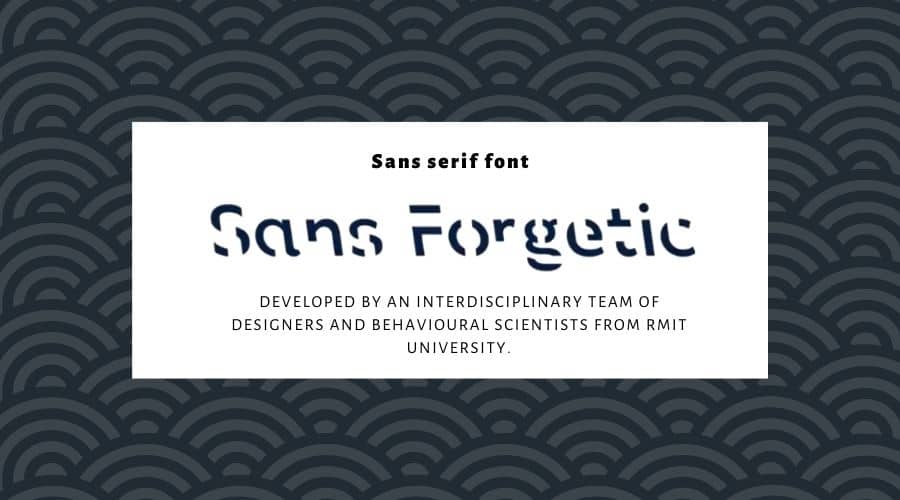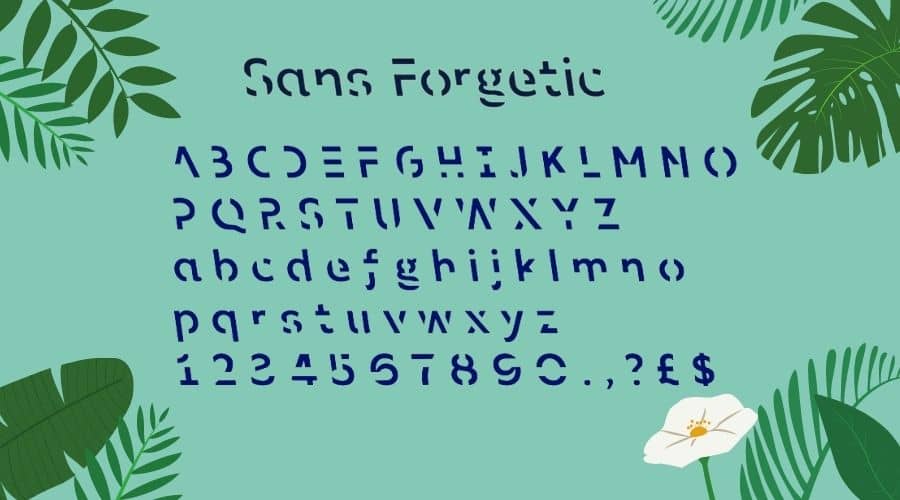
Sans Forgetica Font
The font Sans Forgetica is a Modern Sans serif typeface. On January 11, 2021, it was developed by an interdisciplinary team of designers and behavioural scientists from RMIT University.
For helping you to remember your study notes, the font was created utilizing cognitive psychology concepts. The font makes you remember your study notes which is an unusual and unique motto for making any font. The multidisciplinary analyses of humans mental Psychology state and connected it with this font before launching. The work and goal of this font are entirely different from its fellow fonts as Ancient Olive Sans Serif Font or Ancient Olive Sans Serif Font. The font can be only used in OpenType format.
The primary purpose of the font is to helping people remembering or learning their studies in a better way. Also, this beautiful font can be used in bold and minimalistic work for its features. It depends on the person who is using that how they will multi usable font.
NameSans Forgetica Font
StyleSans serif font
DesignerBehavioural scientists from RMIT University.